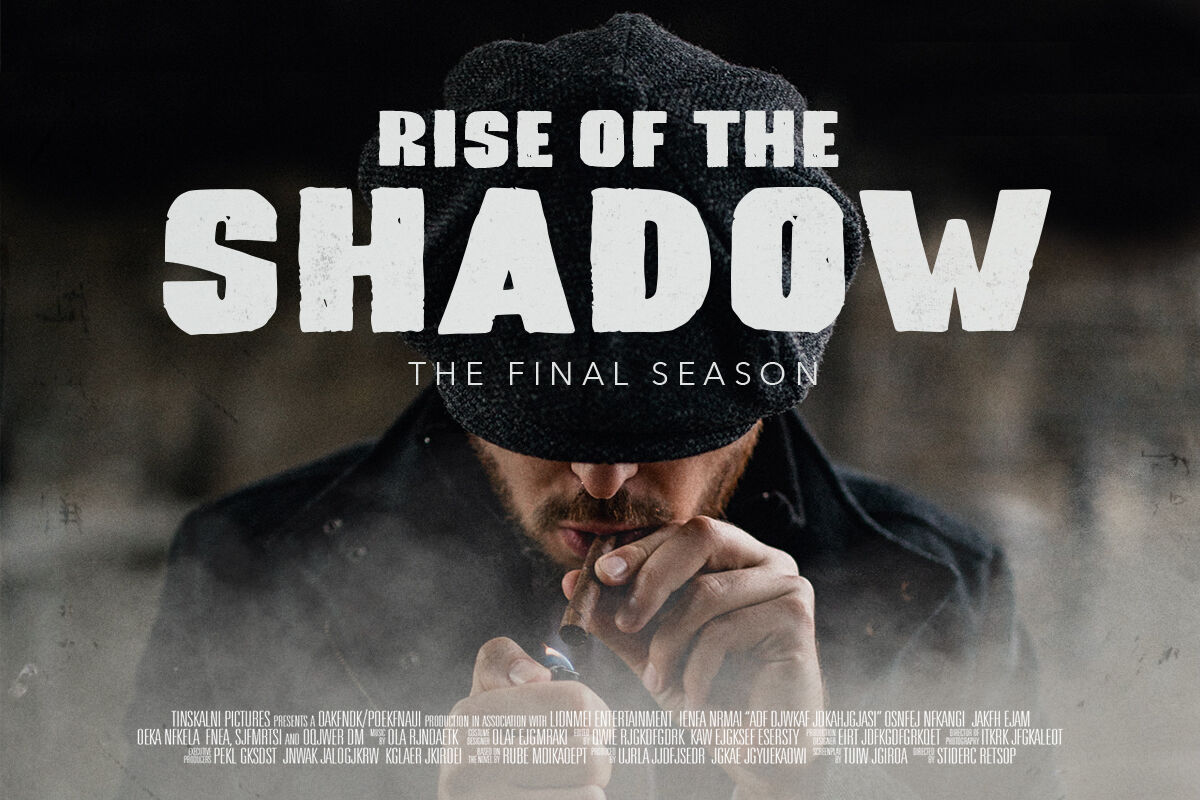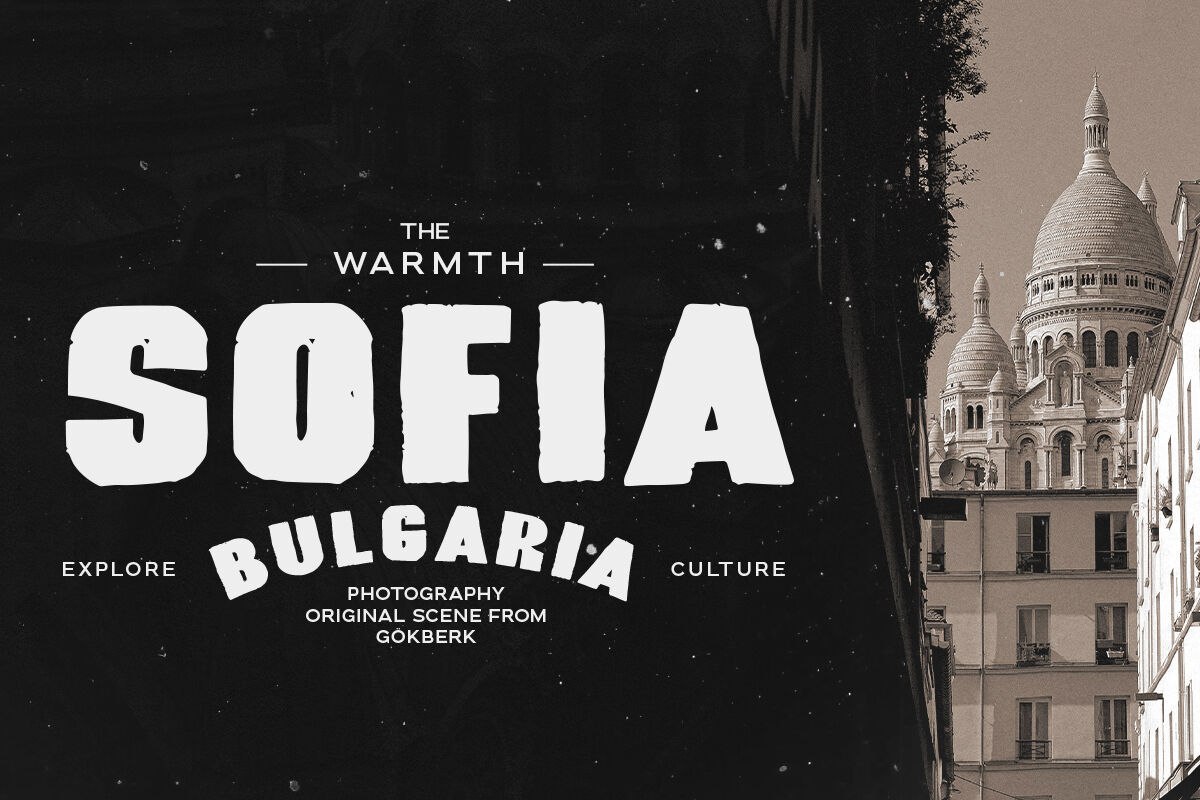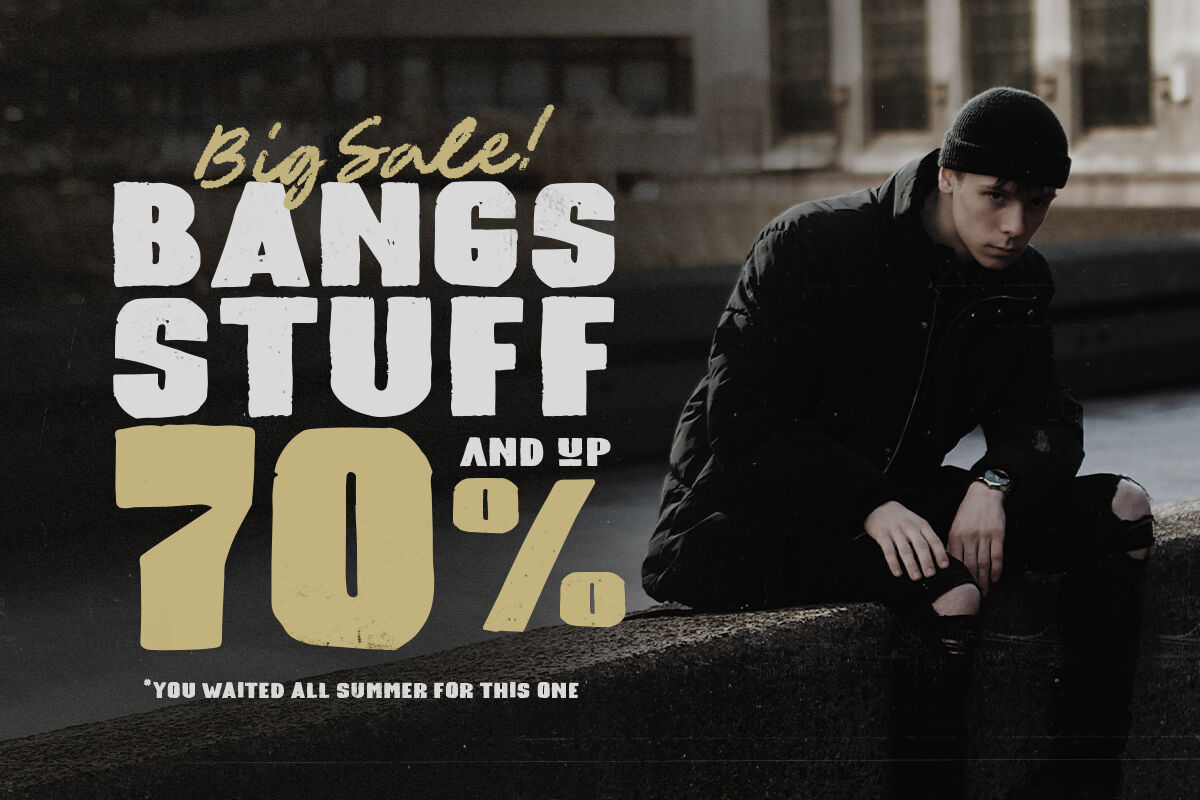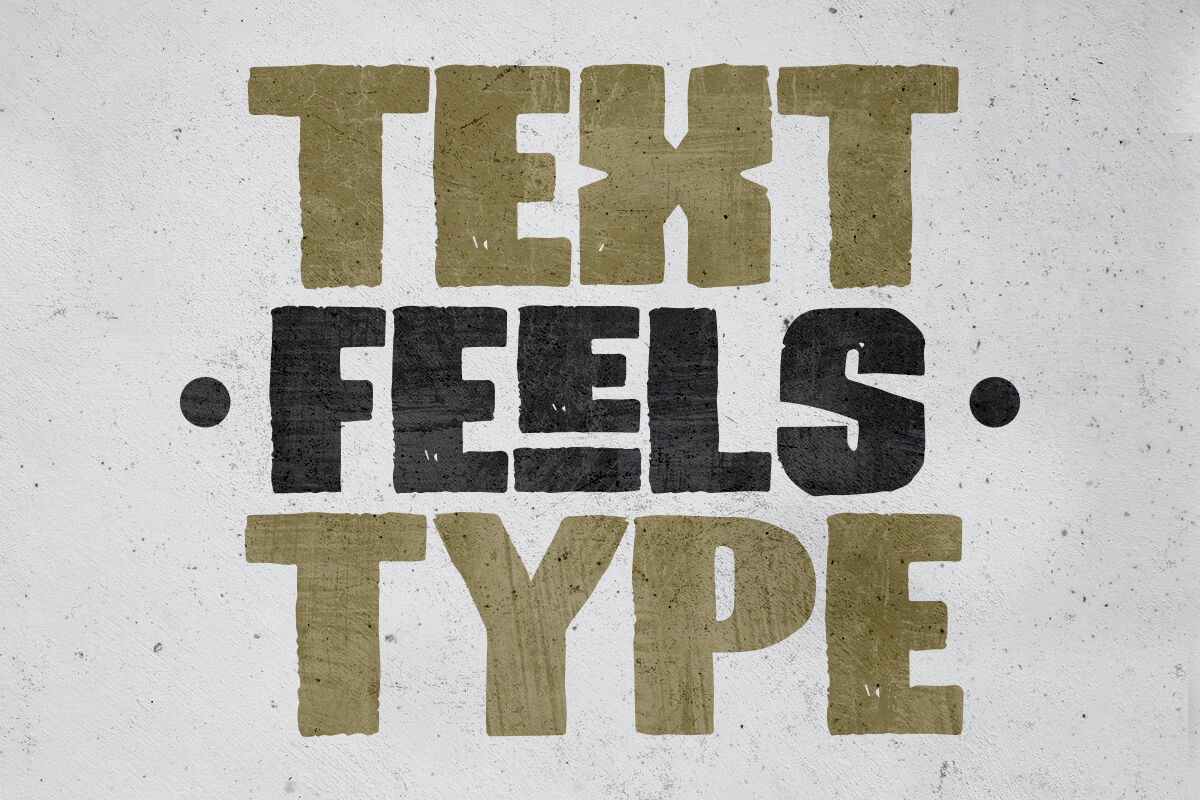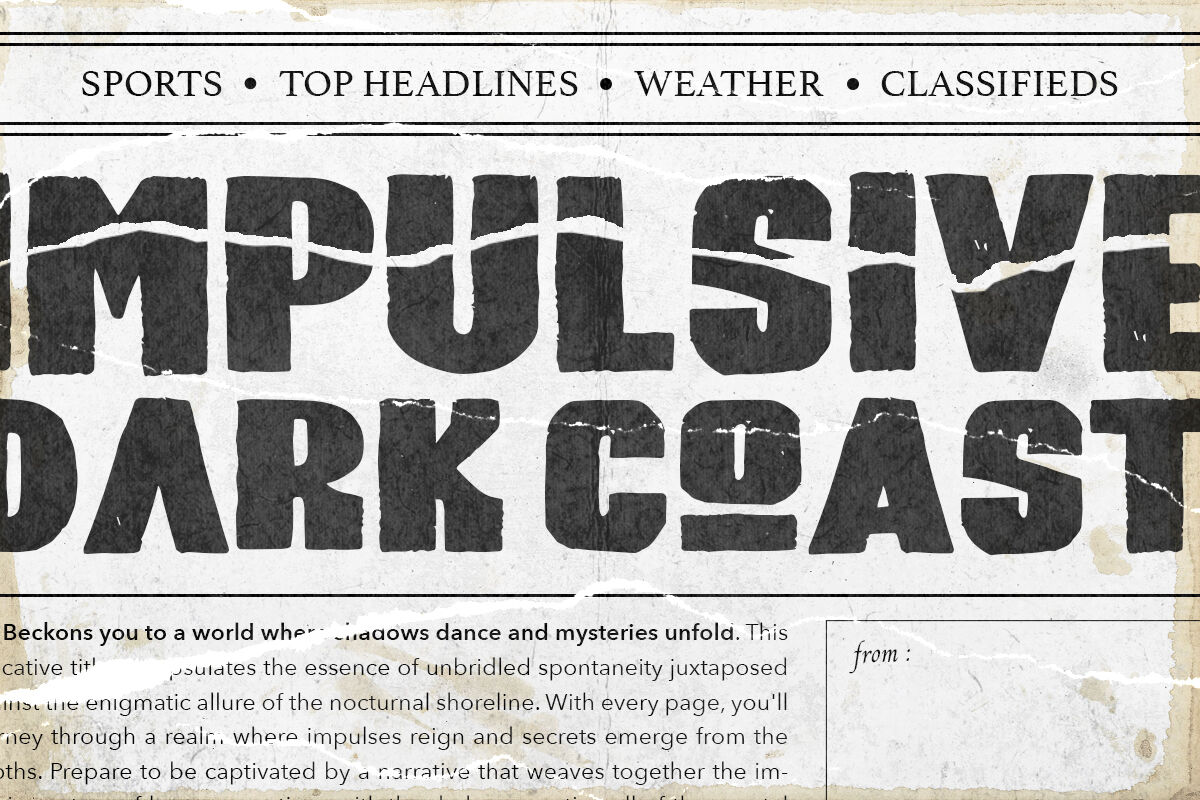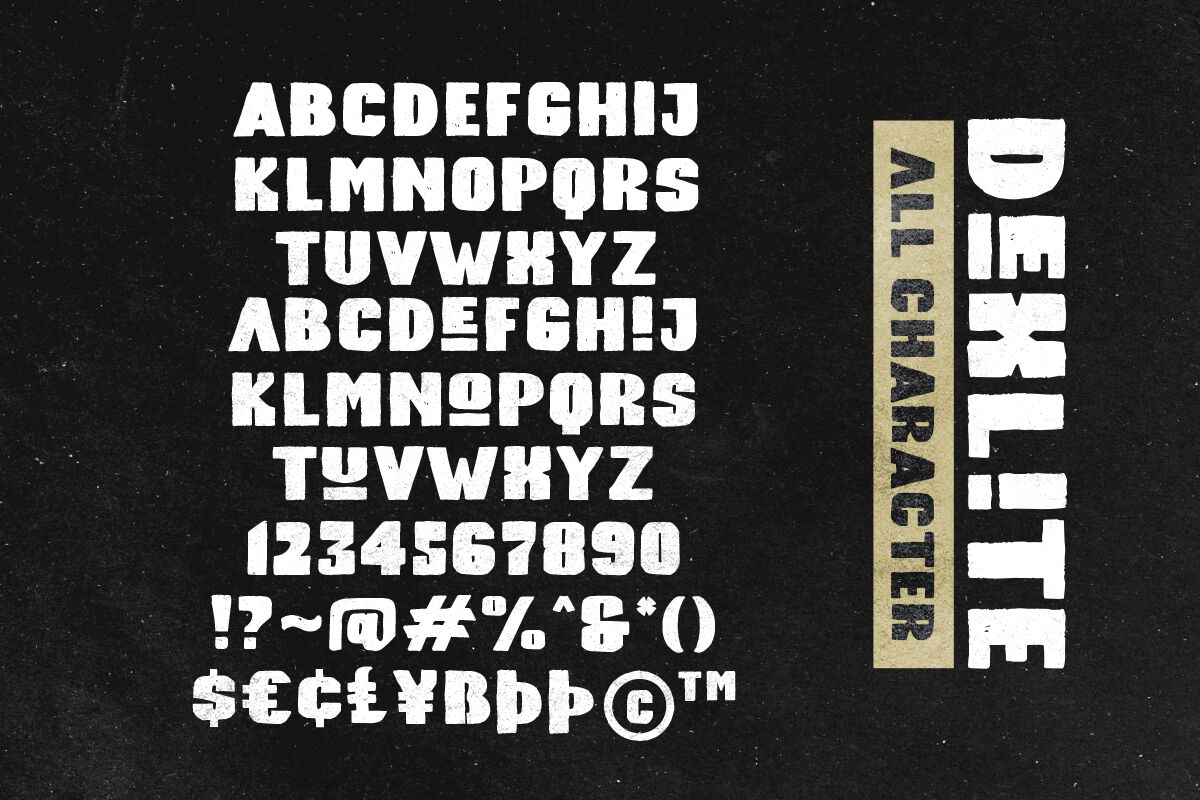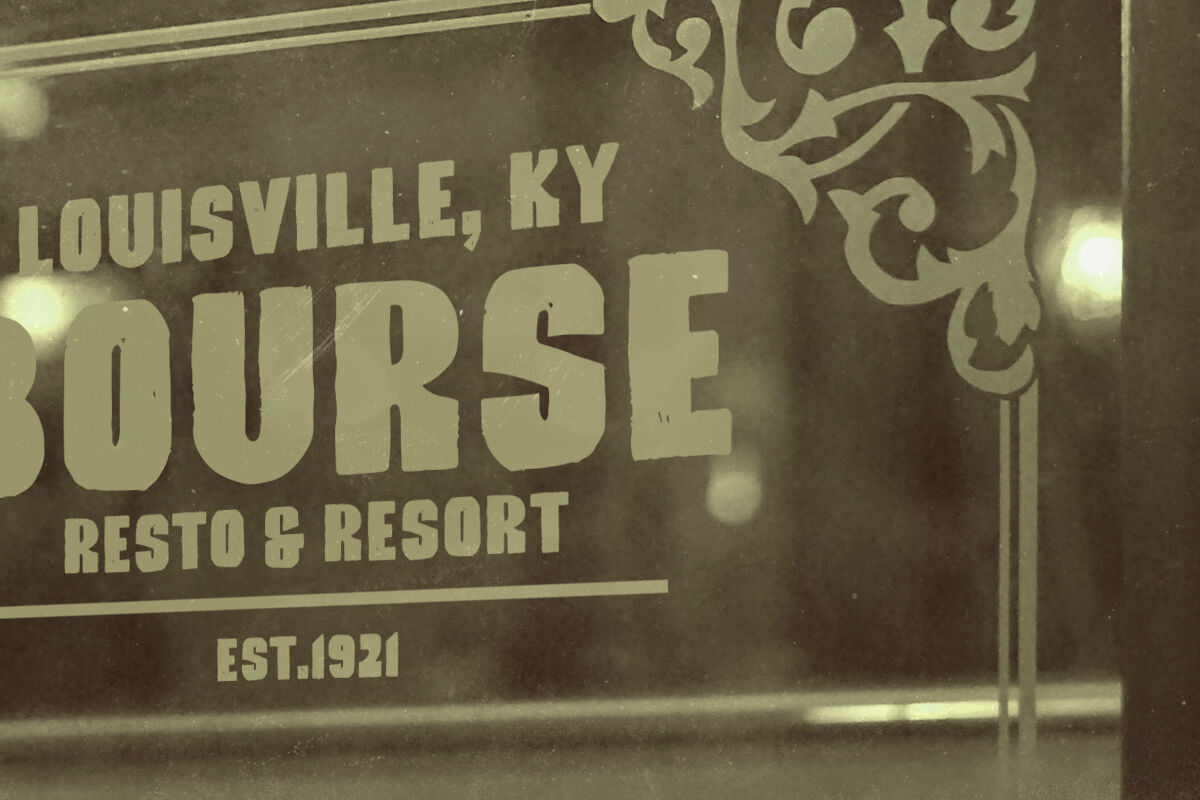
Dexlite - Bold Rough Font
Dexlite is a bold and strong font with textured and rough shape. This font is very suitable for vintage poster that need handmade and rough looks. With strong looks, Dexlite will make your project looks stand out. This font also support multi language!